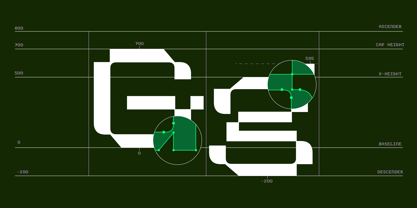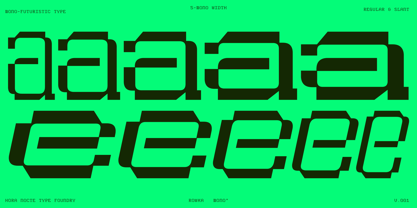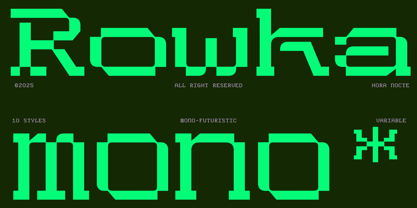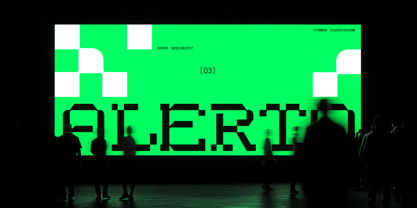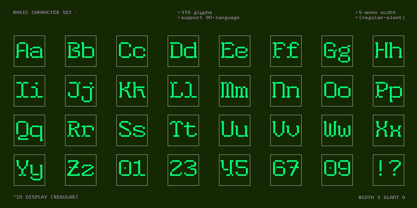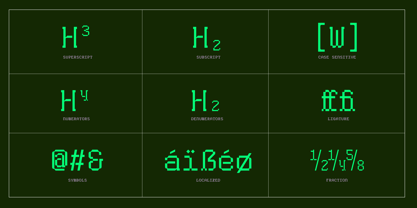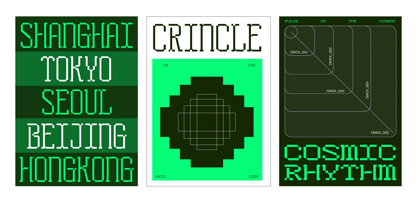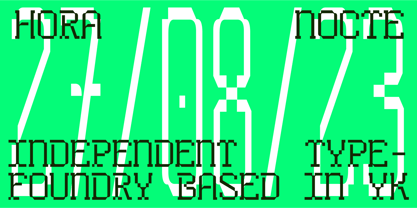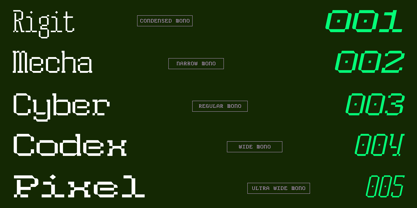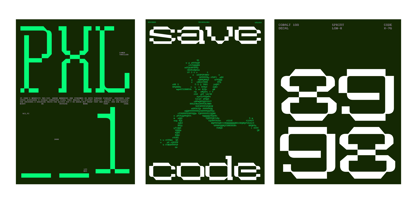
HN Rowka Mono
by Hora Nocte Type Foundry
The HN Rowka Mono Font Family was designed by Hasto Nugroho and published by Hora Nocte Type Foundry. HN Rowka Mono contains 10 styles and family package options. More about this family
HN Rowka Mono — Modular Type for Technical Systems HN Rowka Mono stands out among monospaced fonts with modular geometry, sharp chamfered edges, and a structured grid system. Designed by hora nocte, this variable typeface offers five distinct mono width styles, available in both regular and slant variations. Rooted in early-digital design principles, it brings an industrial sensibility to projects that need a technical, forward-facing tone. Use it across interface design, branding, and editorial work where clarity and structural integrity matter. Its angular forms and consistent spacing support cohesive results in both digital and print environments. HN Rowka Mono also performs well in high-impact motion graphics, experimental layouts, and gaming contexts, with enough versatility in weight and posture for both text and display use.
Hora Nocte Type Foundry was born from the pulse of motion and the silence of the night — a studio where rhythm meets geometry and typography becomes an act of rebellion. We design typefaces that move with intention: experimental, futuristic, and unapologetically bold. Each curve and corner is engineered to channel speed, energy, and control — merging the discipline of technology with the chaos of emotion. Hora Nocte speaks the language of strength and precision, built for the future of sport, tech, and design systems that never sleep. We believe type is more than letters — it’s momentum.